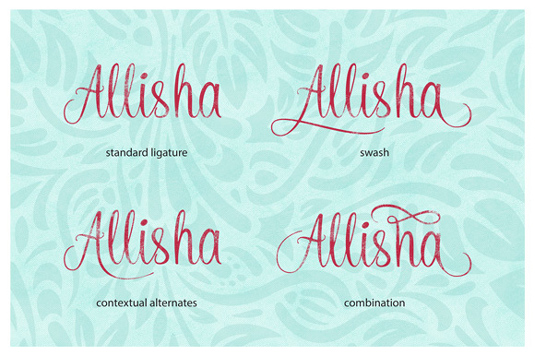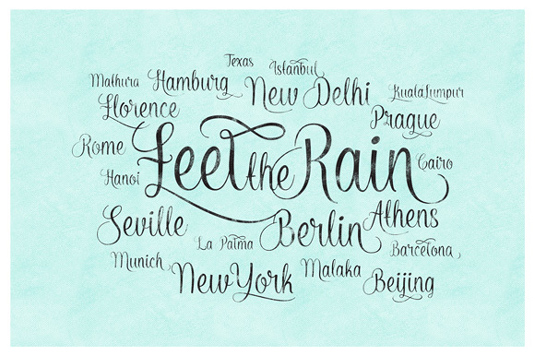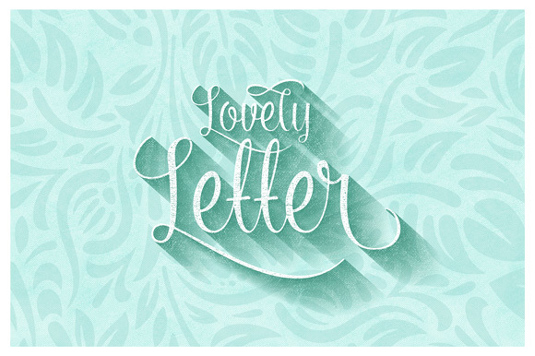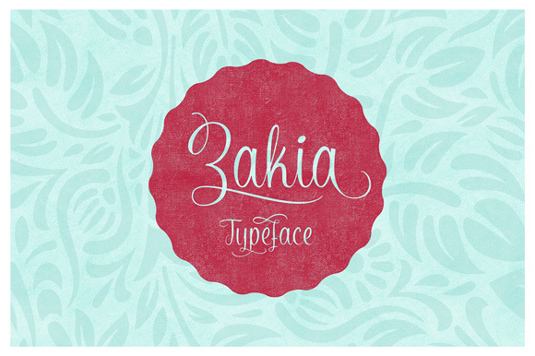
Font of the day: Zakia
Zakia from Artimasa
Today's font of choice is informal script lettering typeface Zakia from Artimasa. The team describe the design on Behance as being 'suitable for any kind of publication like logo design, branding, poster, packaging, website or blog, etc. It is stylish and flowing and feels like human handwriting created using a copperplate pen'.